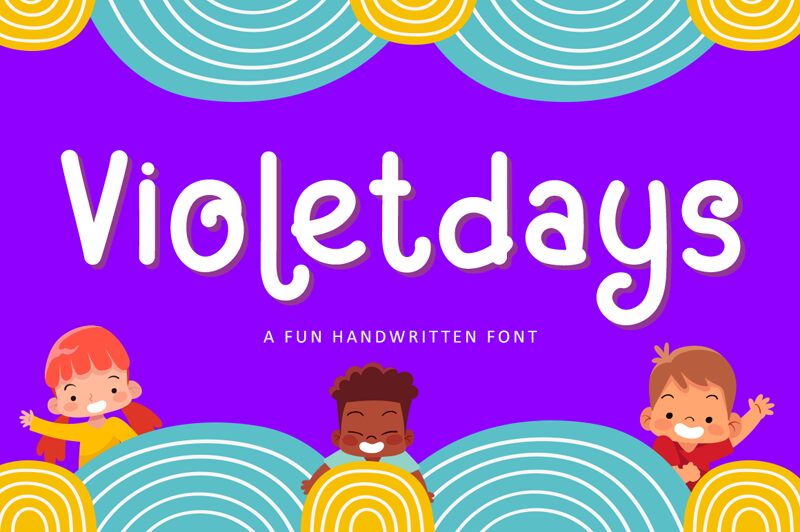
Violetdays is the perfect font for adding a fun, handwritten feel to your projects. Designed by Bayu Suwirya, this light weight font is ideal for creating eye-catching logos, posters, greeting cards and social media posts.